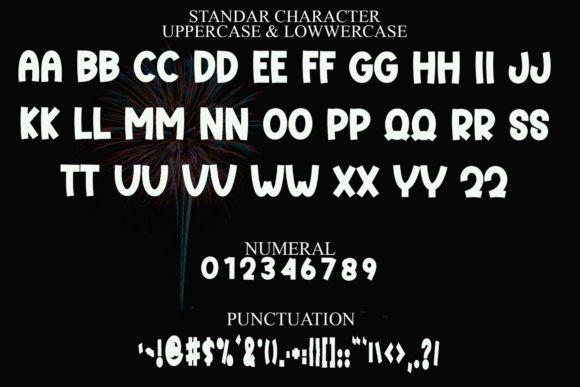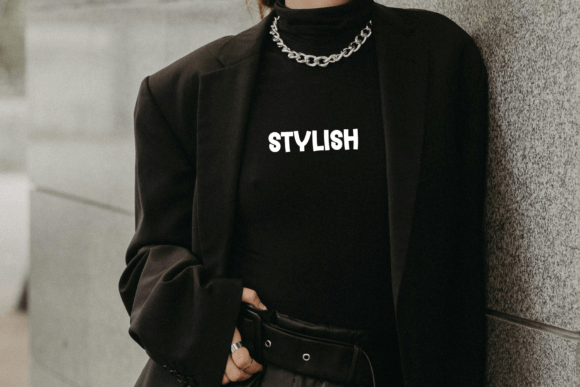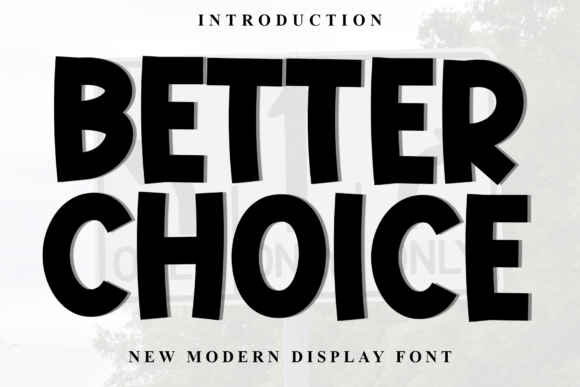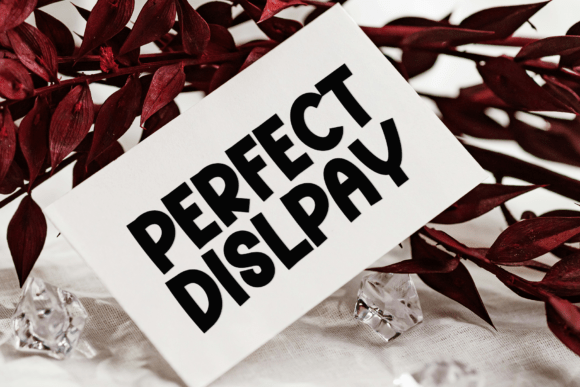
Better Choice Font
About the Better Choice Font
The Better Choice Font is here to transform your projects with its distinctive character and style. Better Choice is a sweet and friendly handwritten font. Its natural and unique style makes it incredibly fitting to a large pool of designs. The only limit is your imagination!